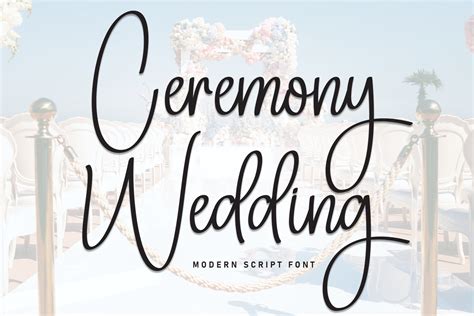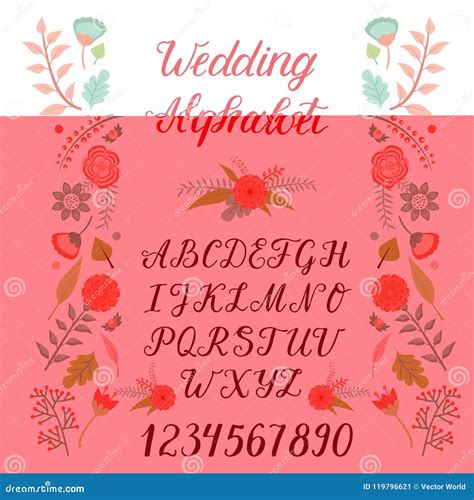
Planning a wedding involves countless details, from the venue and decorations to the attire and menu. One often overlooked but crucial element is the choice of wedding ceremony fonts. The fonts you select for your invitations, programs, and signage can significantly impact the overall aesthetic and tone of your special day. This guide will walk you through the process of choosing the perfect wedding ceremony fonts to ensure your wedding is both stylish and cohesive.
Understanding the Importance of Wedding Ceremony Fonts
Wedding ceremony fonts are more than just a way to convey information; they set the mood and style of your event. The right fonts can enhance the elegance, romance, or whimsy of your wedding, making it a memorable experience for you and your guests. Here are some key reasons why choosing the right wedding ceremony fonts is essential:
- Sets the Tone: Different fonts evoke different emotions. For example, script fonts can add a touch of elegance, while bold, modern fonts can create a contemporary feel.
- Enhances Readability: Clear and legible fonts ensure that your guests can easily read important information, such as the ceremony schedule and seating arrangements.
- Creates Cohesion: Consistent use of wedding ceremony fonts across all your wedding materials, from invitations to menus, creates a unified and polished look.
Types of Wedding Ceremony Fonts
There are numerous types of fonts to choose from, each with its unique characteristics. Here are some popular categories of wedding ceremony fonts to consider:
Script Fonts
Script fonts are elegant and flowing, often resembling handwriting. They are perfect for adding a touch of sophistication to your wedding materials. Some popular script fonts include:
- Allura: A classic script font with a romantic feel.
- Great Vibes: A modern script font with a playful yet elegant touch.
- Lobster: A bold and stylish script font that stands out.
Serif Fonts
Serif fonts have small decorative strokes at the ends of letters, giving them a traditional and timeless look. They are ideal for formal and classic weddings. Some popular serif fonts include:
- Garamond: A classic serif font with a refined and elegant appearance.
- Times New Roman: A widely recognized serif font that is both classic and versatile.
- Playfair Display: A modern serif font with a strong and distinctive style.
Sans-Serif Fonts
Sans-serif fonts do not have the decorative strokes found in serif fonts, giving them a clean and modern look. They are perfect for contemporary and minimalist weddings. Some popular sans-serif fonts include:
- Helvetica: A classic sans-serif font known for its simplicity and versatility.
- Arial: A widely used sans-serif font that is clean and easy to read.
- Montserrat: A modern sans-serif font with a strong and geometric design.
Display Fonts
Display fonts are designed to be used at large sizes and are often more decorative and stylized. They are great for headings and special elements. Some popular display fonts include:
- Pacifico: A playful and casual display font with a handwritten feel.
- Lobster: A bold and stylish display font that stands out.
- Bebas Neue: A modern and clean display font with a strong presence.
Choosing the Right Wedding Ceremony Fonts
Selecting the perfect wedding ceremony fonts involves considering several factors. Here are some steps to help you make the right choice:
Consider Your Wedding Theme
Your wedding theme should guide your font selection. For example, if you're having a rustic wedding, a handwritten or script font might be more appropriate. For a modern wedding, a sans-serif font could be a better fit.
Think About Readability
While aesthetics are important, readability is crucial. Ensure that the fonts you choose are easy to read, especially for important information like the ceremony schedule and seating arrangements.
Match Your Invitations and Programs
Consistency is key when it comes to wedding ceremony fonts. Choose fonts that complement each other and use them consistently across all your wedding materials. This creates a cohesive and polished look.
Test Different Combinations
Don't be afraid to experiment with different font combinations. Pairing a script font with a sans-serif font can create a beautiful contrast, while using two serif fonts can add a touch of elegance.
💡 Note: When testing font combinations, make sure to check how they look together in different sizes and formats, such as on invitations, programs, and signage.
Popular Wedding Ceremony Font Combinations
Here are some popular wedding ceremony fonts combinations that work well together:
| Primary Font | Secondary Font | Style |
|---|---|---|
| Allura | Montserrat | Elegant and Modern |
| Great Vibes | Playfair Display | Romantic and Classic |
| Lobster | Helvetica | Bold and Contemporary |